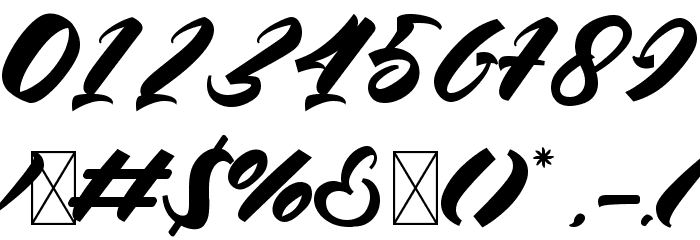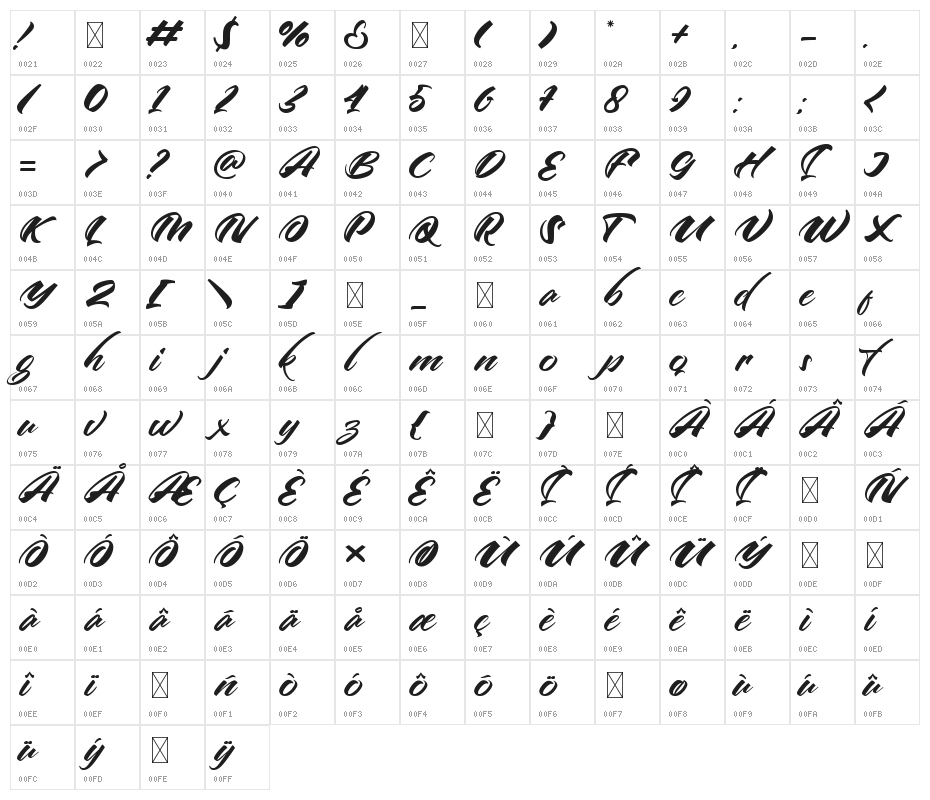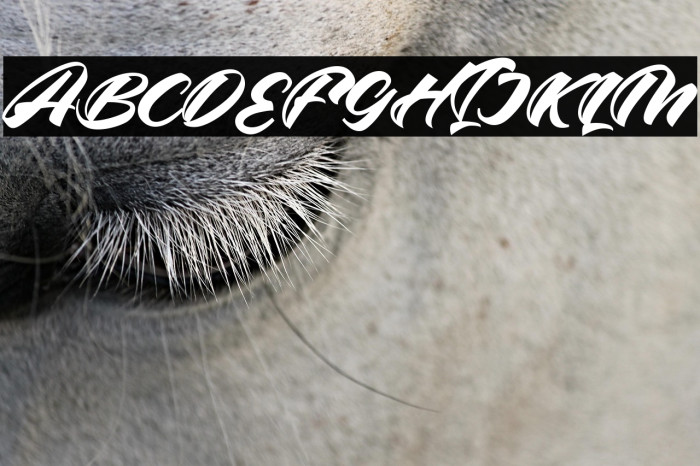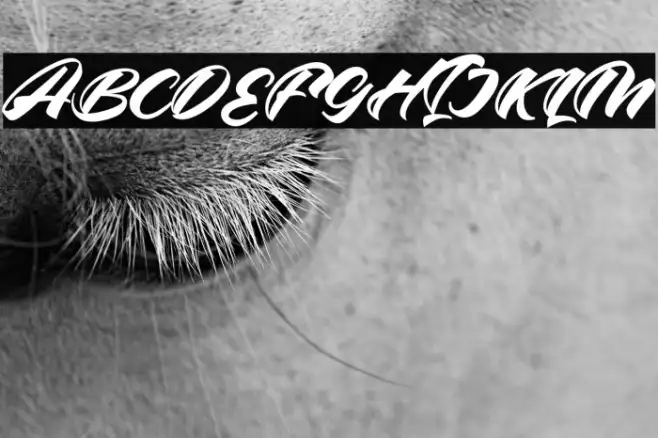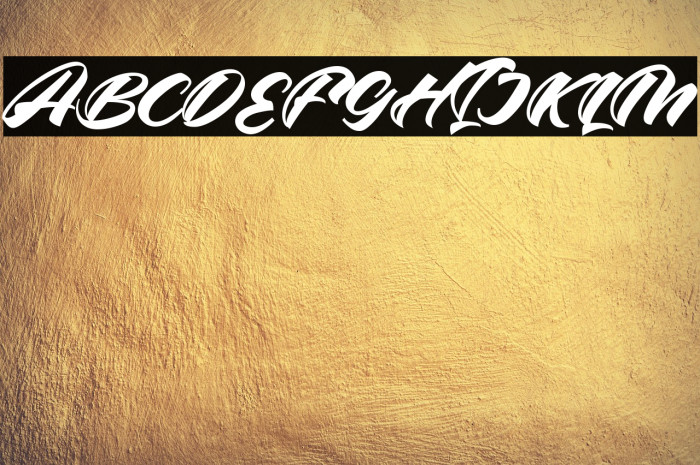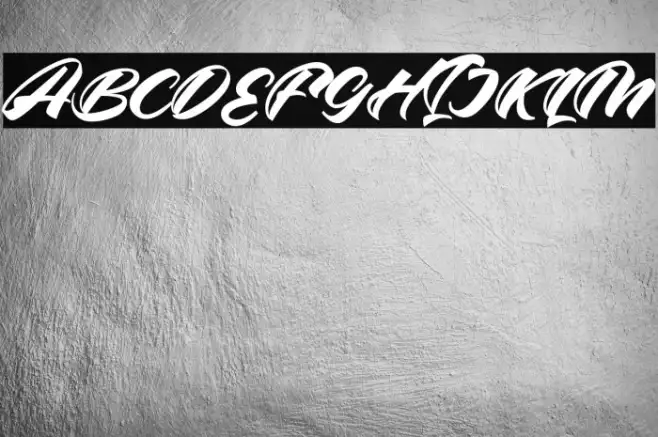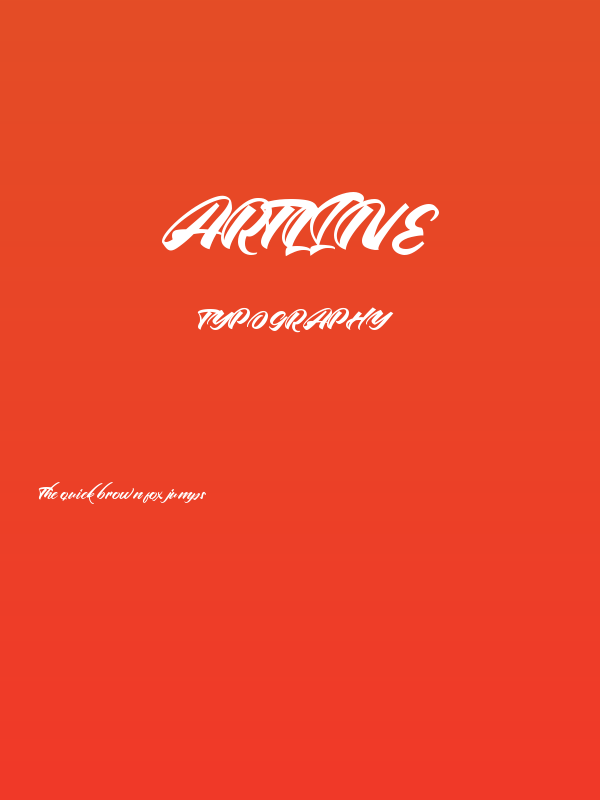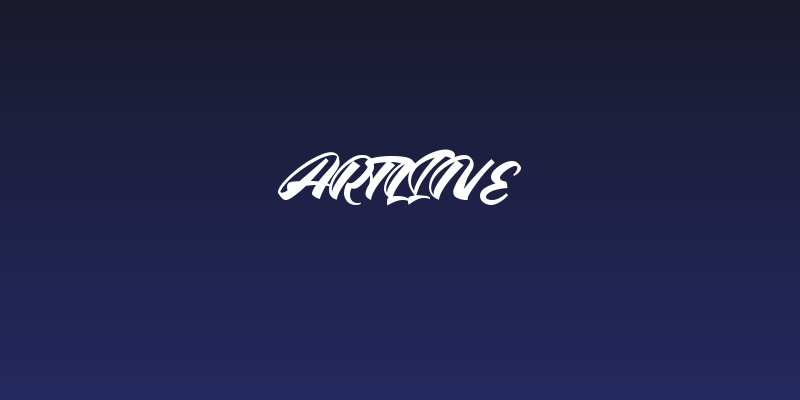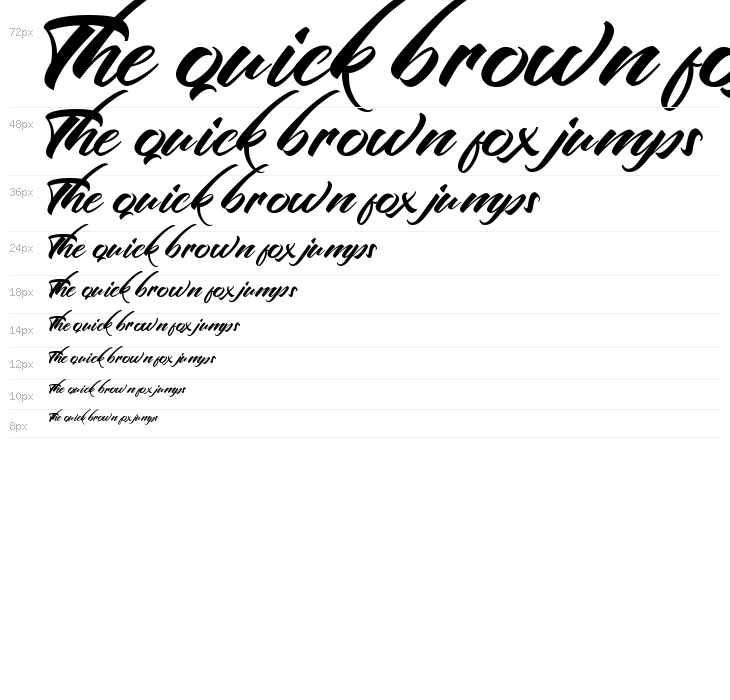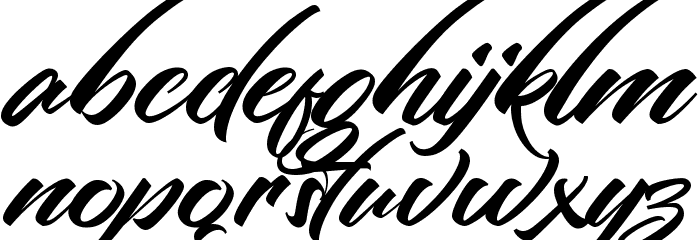
Artline Font
Artline Description
This font exudes a bold and dynamic presence with its thick, flowing strokes and elegant curves. The letters are crafted with a calligraphic flair, giving it a sense of movement and fluidity. The uppercase characters are particularly striking, with their sweeping lines and dramatic flourishes. The lowercase letters maintain a cohesive style, complementing the uppercase with their own graceful loops and connections. Numbers and special characters are designed with the same attention to detail, ensuring a consistent look throughout. This font's high contrast and artistic style make it ideal for projects that require a touch of sophistication and creativity.
| Proposed Projects | Ideal for wedding invitations, branding, logo design, and artistic posters. |